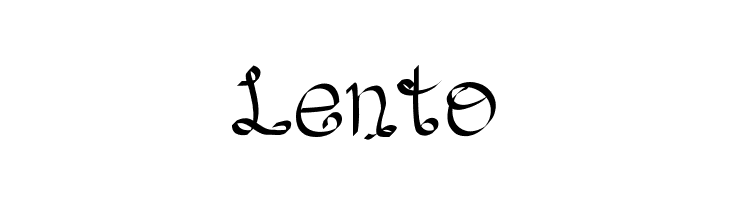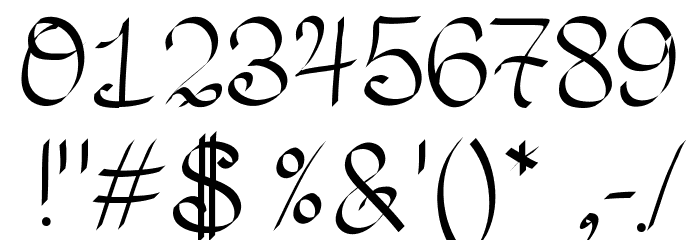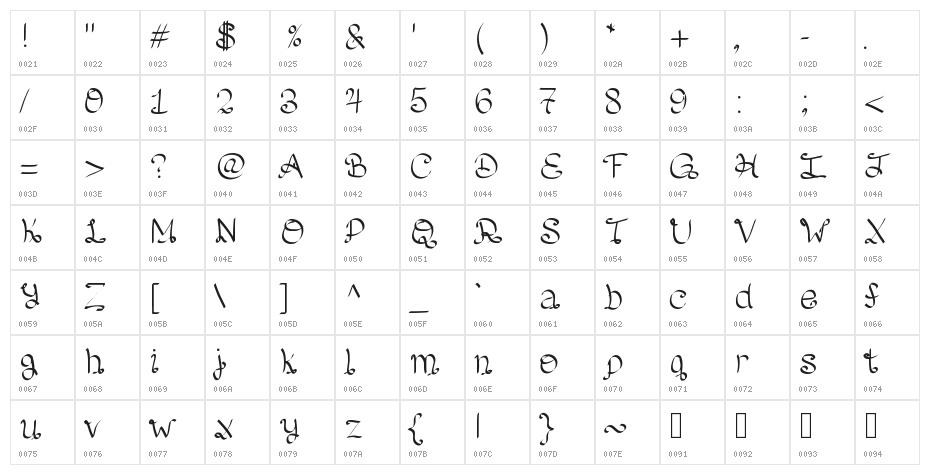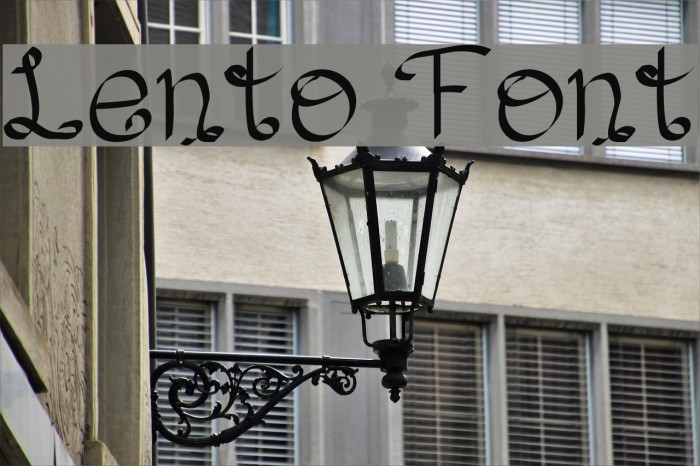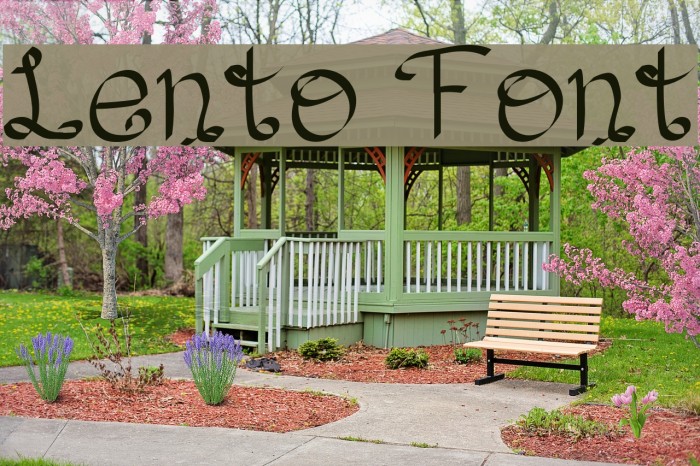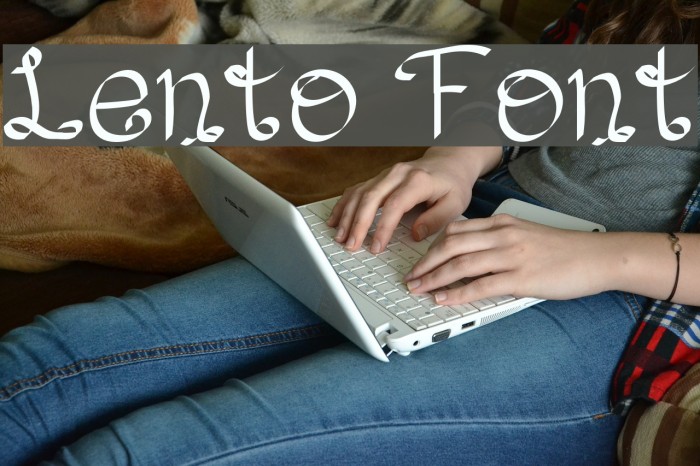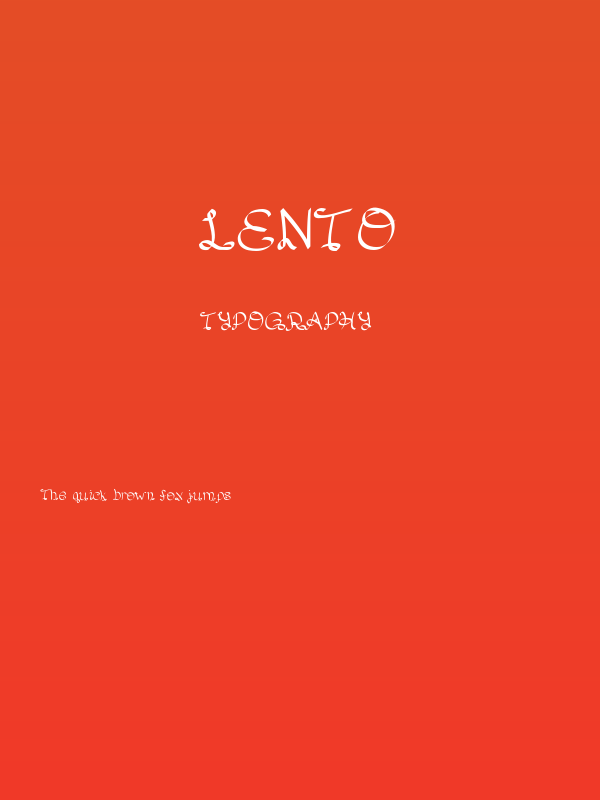
Lento Font
Lento Description
This font features a unique and decorative style with a calligraphic flair. Each character is adorned with elegant swirls and loops, giving it a whimsical and artistic appearance. The uppercase letters are bold and prominent, while the lowercase letters maintain a consistent flow with intricate details. The numerals are equally stylized, offering a cohesive look across all characters. The special characters complement the overall design, making it suitable for creative and expressive projects. Its distinctiveness makes it stand out, ideal for capturing attention in various design contexts.
| Use Case | Headlines, Logos, Artistic projects |
| Proposed Projects | Ideal for invitations, greeting cards, artistic posters, branding, and decorative headlines. |